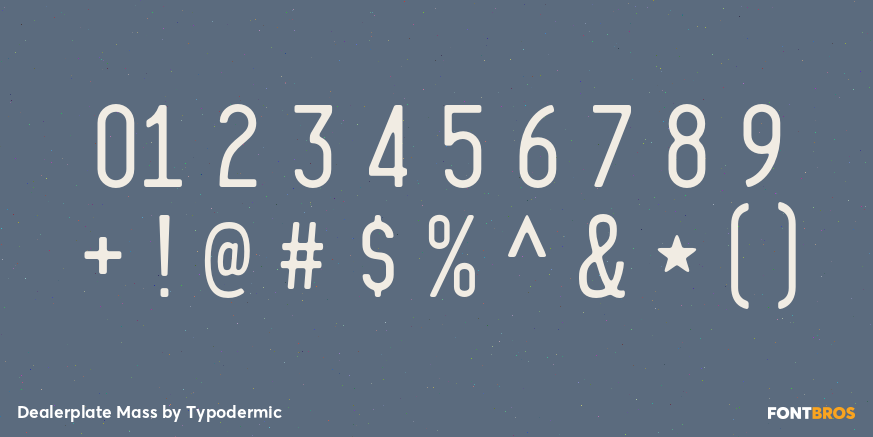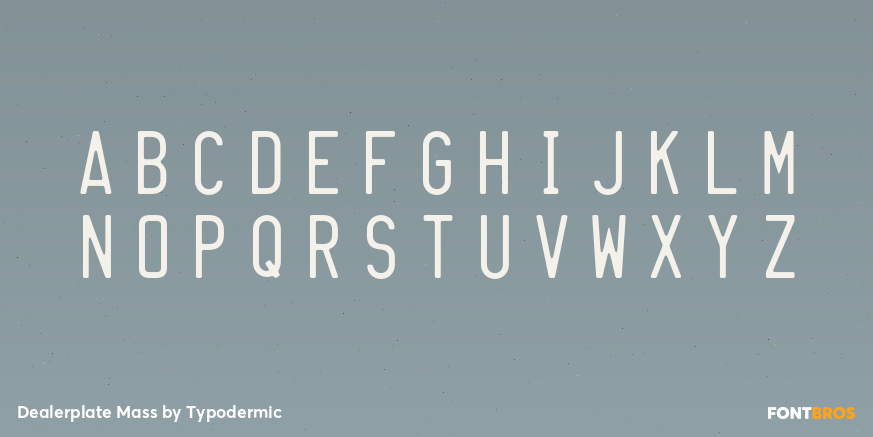
Dealerplate Mass
Dealerplate Mass extends Massachusetts-inspired license-plate lettering into a complete alphabet. It provides the missing characters needed for fictional registrations, prop typography, and interface text while keeping the compact regional character of a Massachusetts vehicle setting.
Use it for Boston police procedurals, New England road stories, period reconstructions, driving games, virtual-production traffic, evidence photos, parking permits, impound documents, and automotive heritage displays. The style can carry a hero plate's visual language into case-file labels, garage graphics, registration props, or vehicle menus, helping Massachusetts scenes feel deliberately located rather than dressed with a generic plate font.